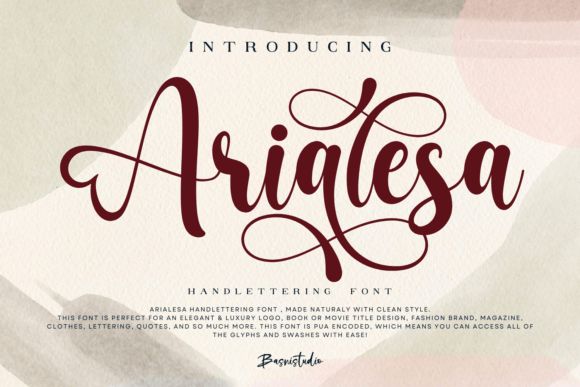
Arialesa Font: Elevate Your Designs with Elegance and Luxury
In the world of typography, a font can make or break a design. For designers and crafters seeking to add a touch of sophistication and luxury to their work, the Arialesa Font is an exceptional choice. This stunning handlettering font, crafted with a natural and clean style, is perfect for a wide range of applications, from elegant logos and book or movie titles to fashion brands, magazines, and more.
Unpacking the Arialesa Font
The Arialesa Font is not just any ordinary font; it’s a masterpiece of modern typography, designed to bring a sense of refinement and poise to any project. Its natural and clean style ensures that it remains versatile, capable of being used in various contexts without losing its charm. Whether you’re working on a luxury logo, a book cover, a movie title sequence, or even a fashion brand’s identity, this font promises to elevate your design to new heights.
Key Features of Arialesa Font
- Elegant and Luxurious: The Arialesa Font exudes elegance and luxury, making it perfect for high-end designs.
- Natural and Clean Style: Its natural and clean aesthetic ensures it can be seamlessly integrated into a variety of design projects.
- PUA Encoded: Being PUA encoded, accessing glyphs and swashes is straightforward, offering designers flexibility and creativity.
- Versatile: Suitable for a multitude of applications including logos, book or movie titles, fashion brands, magazines, clothing, lettering, and quotes.
Applications of Arialesa Font
The versatility of the Arialesa Font is one of its most compelling attributes. Here are some of the many ways you can utilize this exquisite font:
- Elegant Logos: Create memorable and sophisticated logos for luxury brands.
- Book and Movie Titles: Add a touch of class to book covers and movie title sequences.
- Fashion Brands: Perfect for fashion brands looking to make a statement with their typography.
- Magazines: Elevate the look of your magazine with this elegant font.
- Clothes and Apparel: Use it for clothing and apparel branding to stand out in the fashion industry.
- Lettering and Quotes: Ideal for creating beautiful lettering pieces and inspirational quotes.
Why Choose Arialesa Font?
In a sea of fonts, what makes Arialesa stand out? The answer lies in its unique blend of elegance, versatility, and ease of use. The PUA encoding ensures that you have access to a wide range of glyphs and swashes, allowing for immense creative freedom. Moreover, its clean and natural style ensures that it can be used across various platforms and design applications without losing its aesthetic appeal.
Tips for Using Arialesa Font
To make the most out of the Arialesa Font, consider the following tips:
- Experiment with Swashes: Don’t hesitate to play around with the glyphs and swashes to add a personal touch to your designs.
- Mix and Match: Try combining Arialesa with other fonts for interesting contrasts and effects.
- Pay Attention to Spacing: Ensure that your text has adequate spacing to maintain readability and aesthetic balance.
The Arialesa Font is a powerful tool for designers and crafters looking to infuse their work with elegance and luxury. Its natural and clean style, coupled with its PUA encoding for easy access to glyphs and swashes, makes it an excellent choice for a wide range of design projects. Whether you’re aiming to create a stunning logo, a captivating book title, or an impactful fashion brand identity, Arialesa is sure to meet your needs and exceed your expectations.